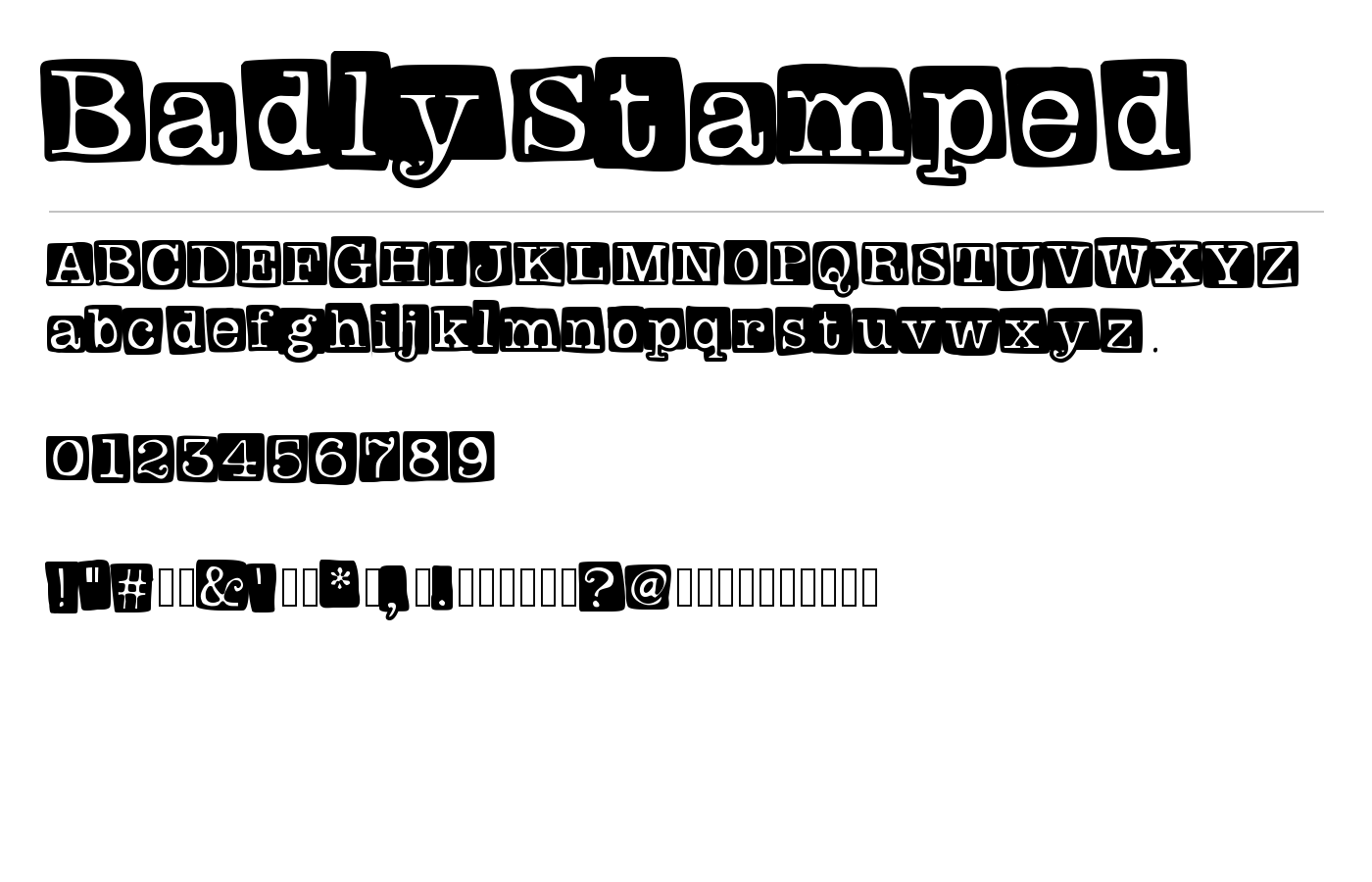
BadlyStamped is a playful and bold slab serif font with an irregular, hand-stamped look that gives it a charming, imperfect character. Its blocky letterforms with uneven edges and varying backgrounds convey a quirky, vintage vibe, making it ideal for fun, casual branding, posters, and creative headlines where a handmade, attention-grabbing style is desired.
About BadlyStamped Font